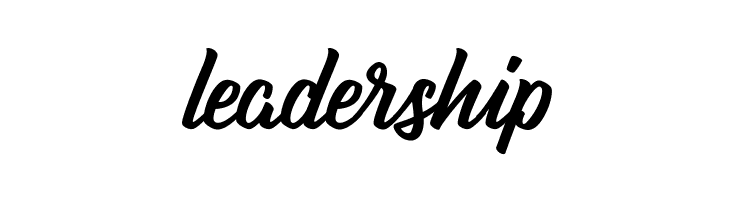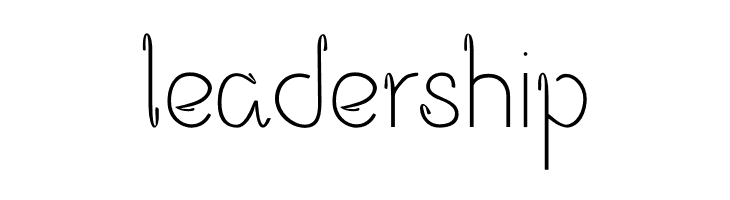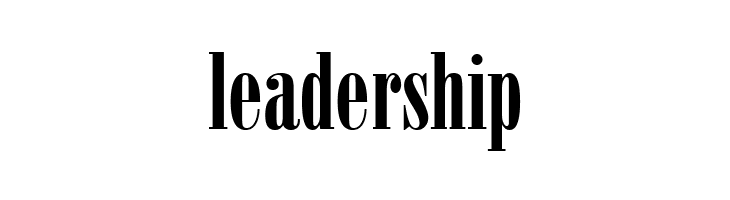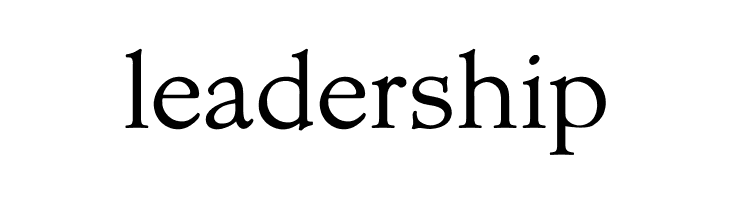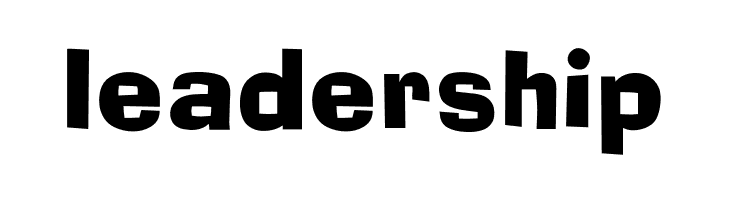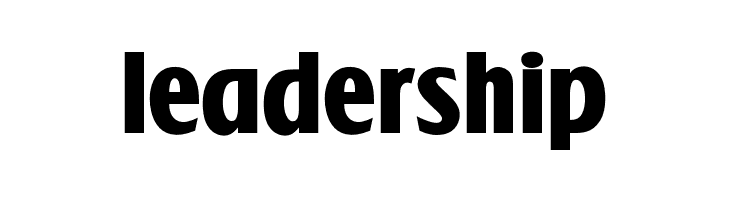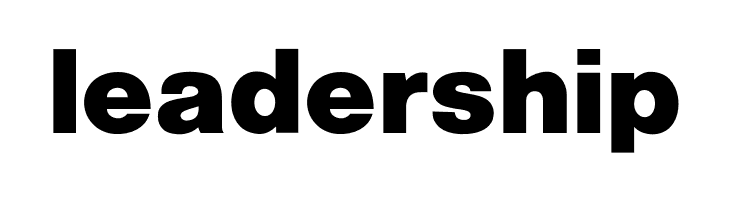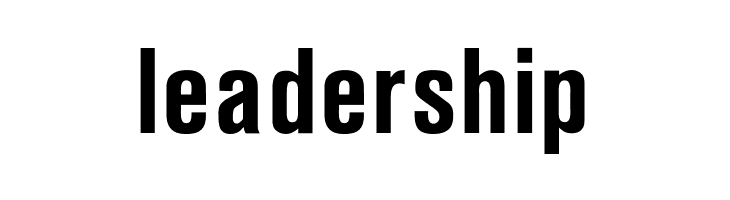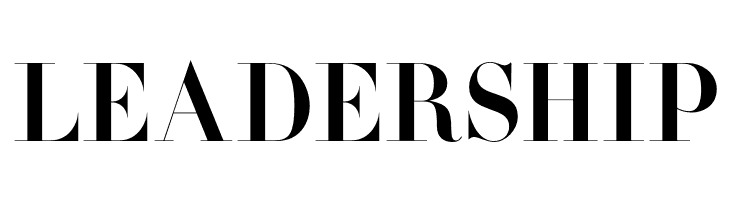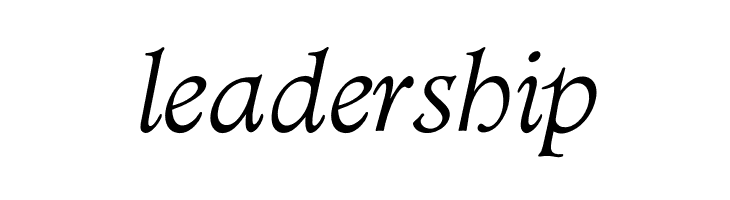
• Olde English
• OldEnglishFiveOpti
A Gothic-style font with intricate, angular strokes and ornate serifs.
• Oldways-Italic
A bold, italicized font with a dynamic and energetic style.
• Ondfuturs
A bold, dynamic script font with fluid, connected letterforms.
• Ondfuturs
A bold, dynamic script font with fluid, connected letterforms and a playful yet sophisticated style.
• ONKELZ 2014
A bold, distressed font with a rugged, vintage appearance.
• Onyx BT
• Opalo
A playful and artistic font with unique decorative elements and a modern flair.
• OPBinderStyle-Bold
A bold, narrow font with high contrast, perfect for impactful headlines.
• OpenBaybayin
A modern, geometric interpretation of the traditional Baybayin script.
• Opiated BRK
A bold, high-contrast font with a modern and unique design.
• OPNatty-Bold
A bold, blocky font with high contrast and strong visual impact.
• OPTI Didot CBS Special
A classic serif font with high contrast and elegant serifs.
• OPTIAction-Brush
A lively brush-style font with fluid, hand-drawn strokes.
• OPTIActon-Heavy
A bold, modern typeface with strong, impactful characters.
• OPTIAdministerBoldAd
A bold, classic serif font with strong, authoritative strokes.
• OPTIAdministerBookAd
A classic serif font with elegant strokes and high contrast, ideal for traditional and sophisticated designs.
• OPTIAdministerBookItalicAd
An elegant, italic serif font with classic styling and graceful curves.
• OPTIAdministerLightAd
A classic serif font with elegant strokes and balanced proportions.
• OPTIAdministerLightItalic
A refined, elegant serif font with a light, italic style.
• OPTIAdrift
A classic serif font with sharp serifs and a traditional yet modern aesthetic.
• OPTIAdset